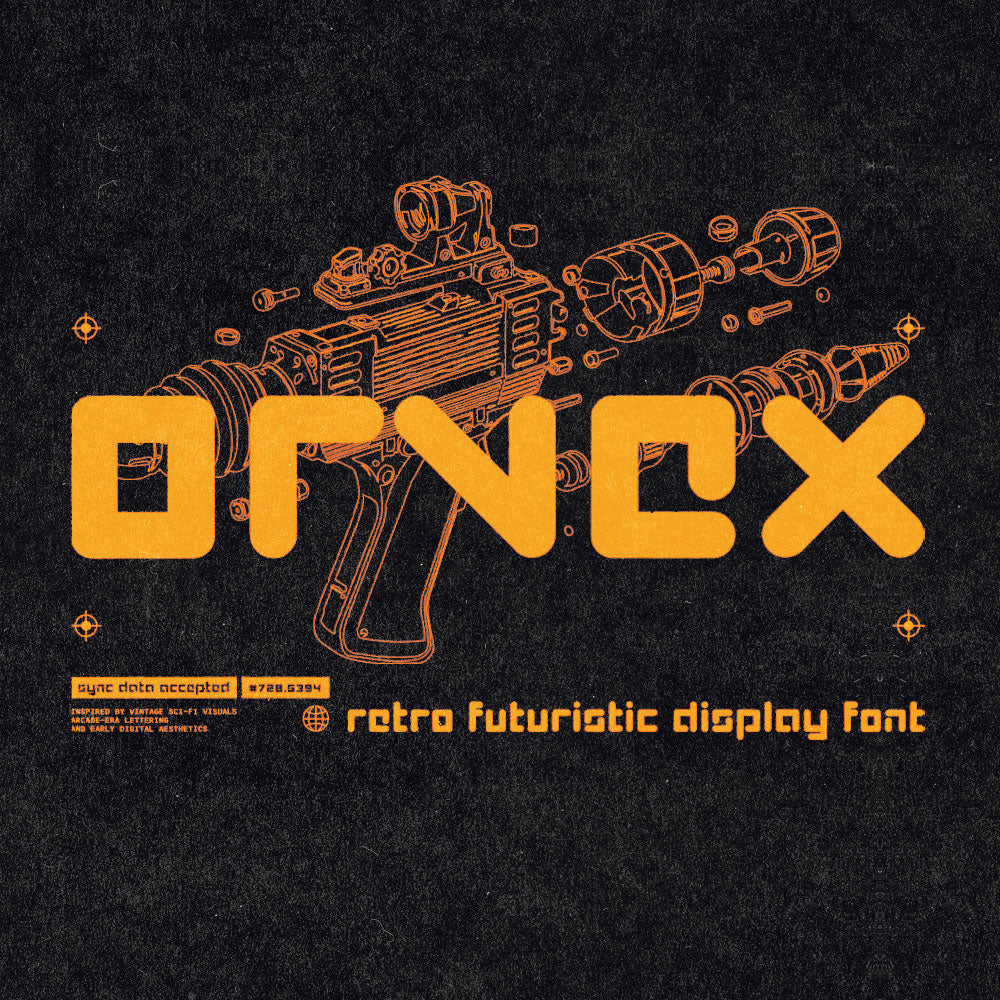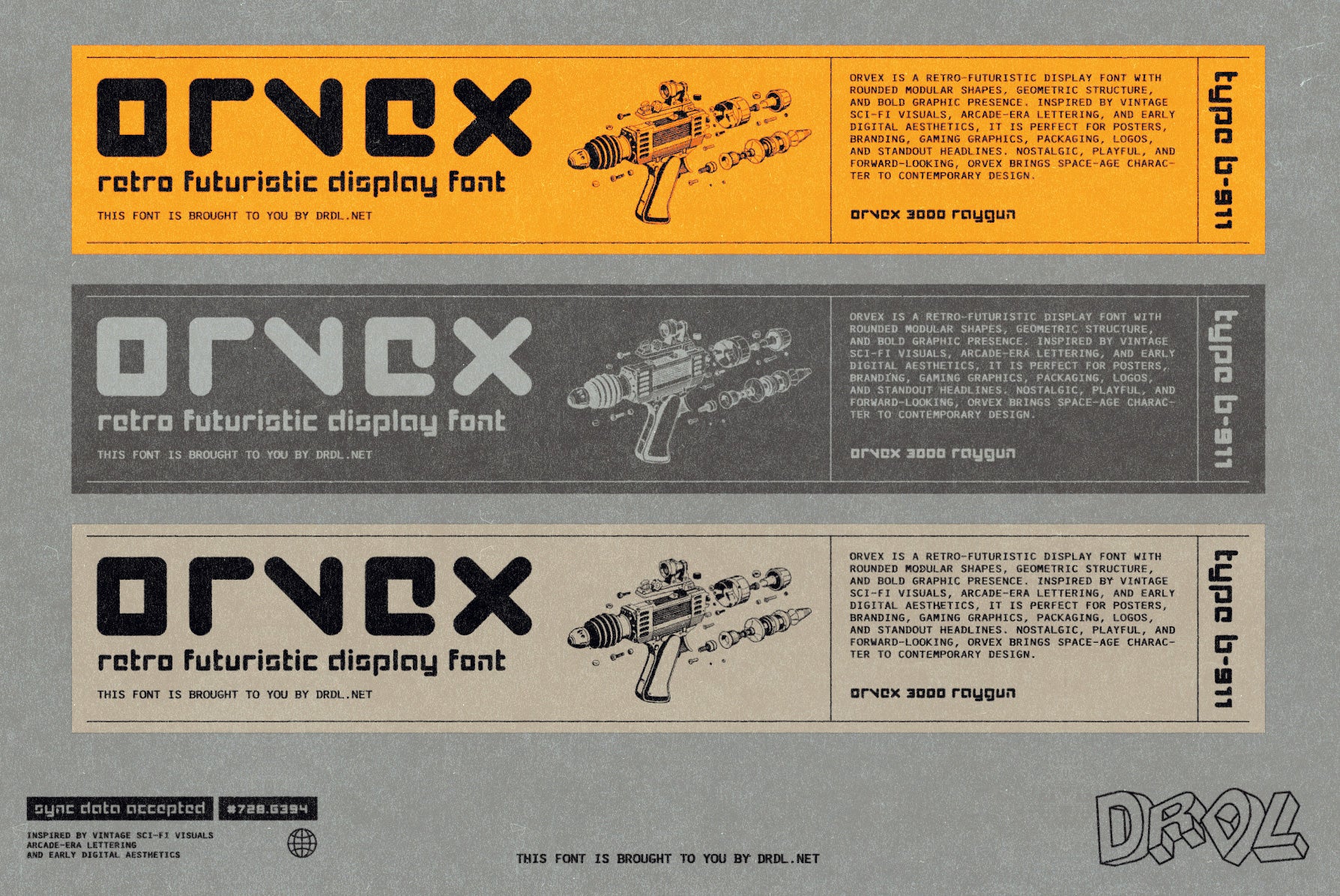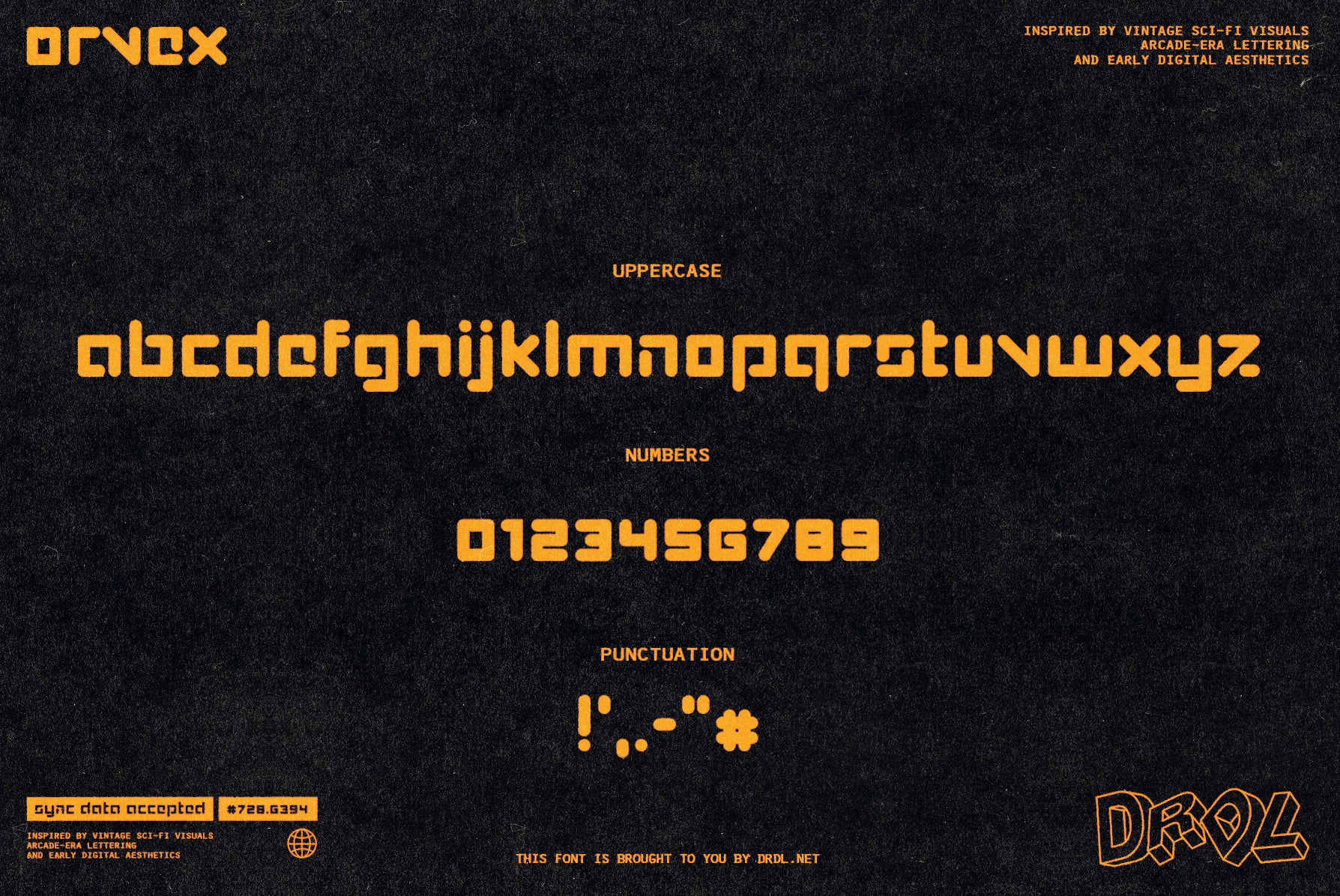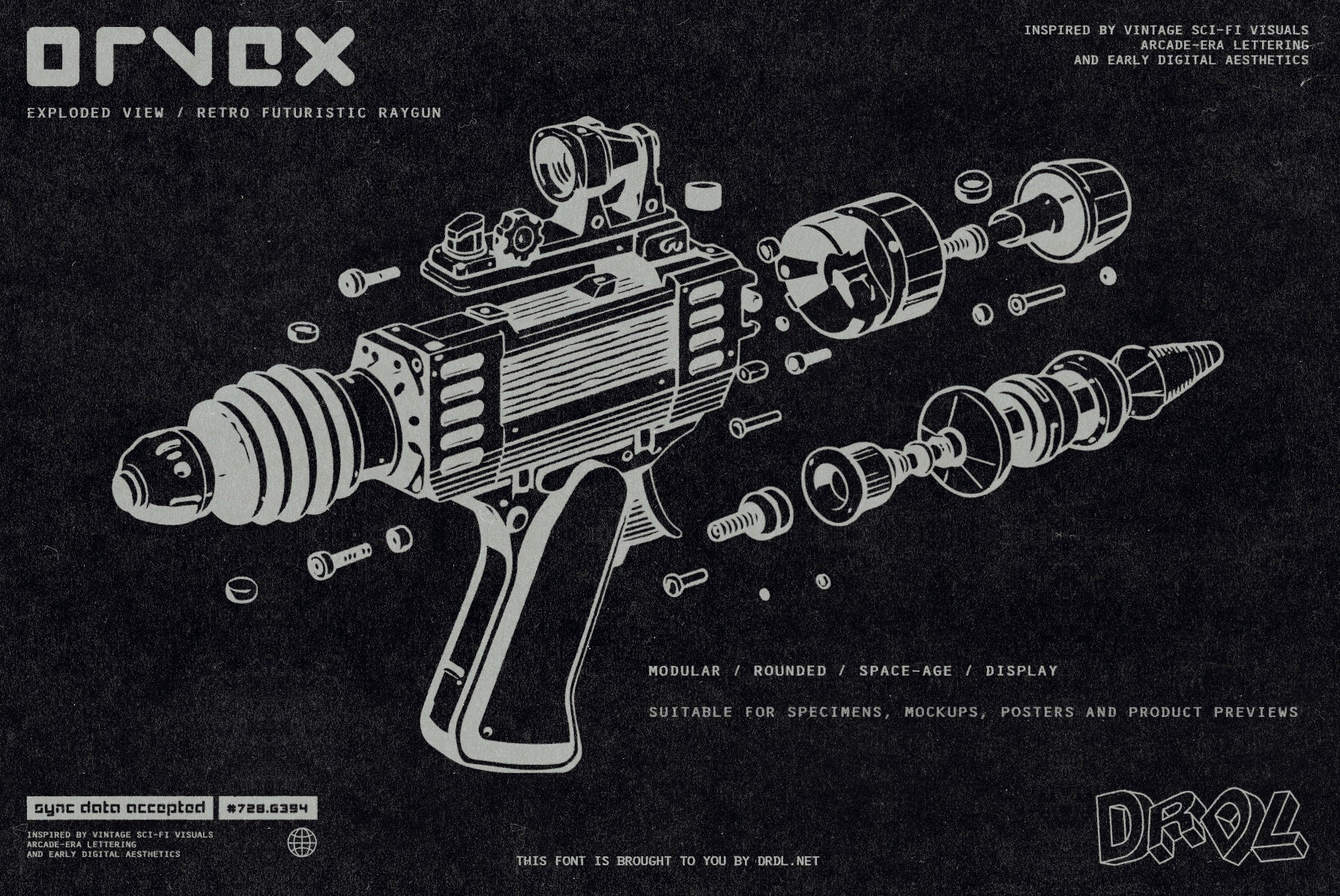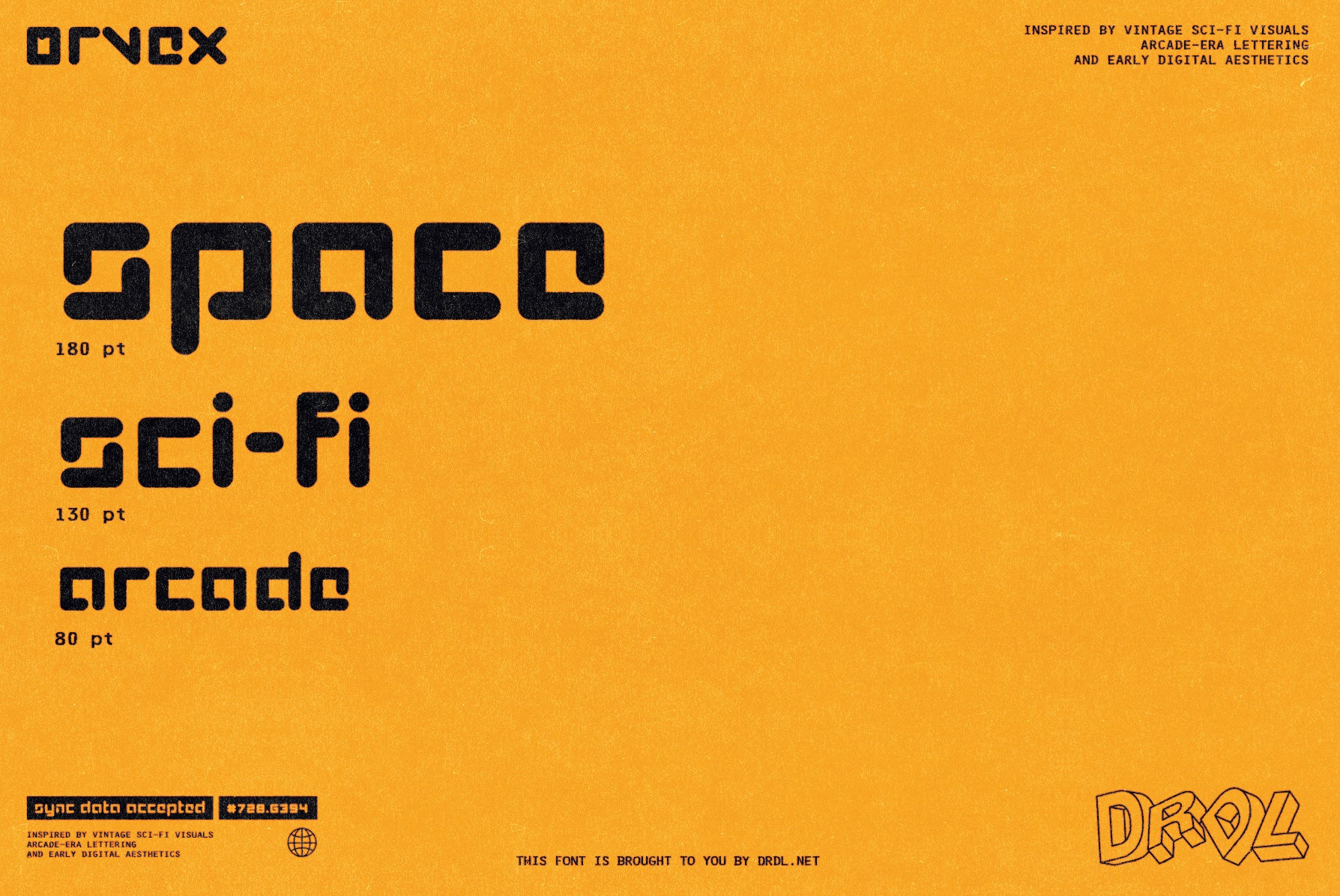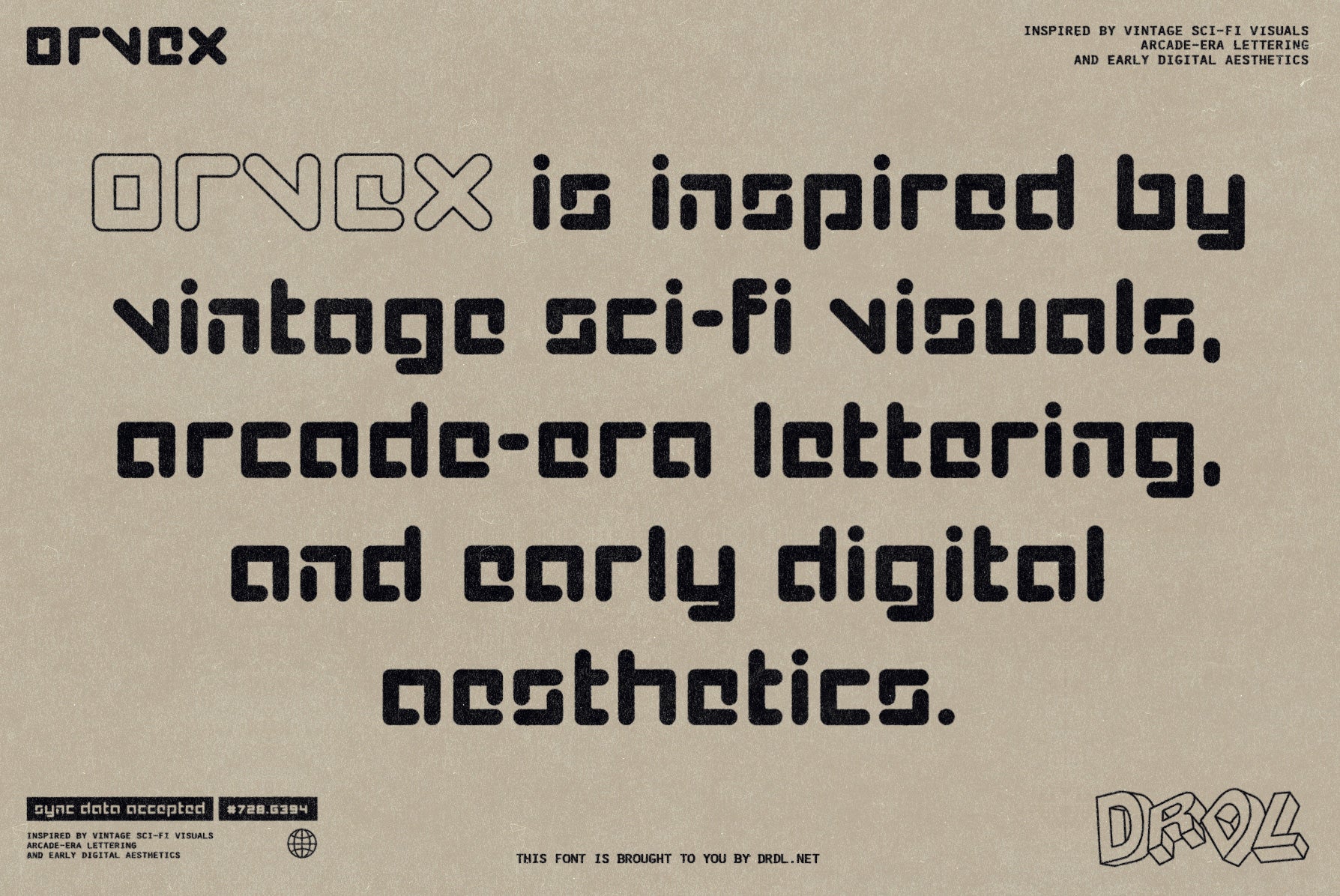
ORVEX – Retro Futuristic Display Font
ORVEX is a bold retro-futuristic display font built from rounded modular shapes and compact geometric forms.
Inspired by vintage sci-fi graphics, early digital interfaces, arcade-era lettering, and futuristic brand aesthetics, ORVEX blends nostalgic space-age character with a clean contemporary structure. Its soft corners, wide stance, and distinctive modular rhythm make it ideal for standout visual design.
Perfect for posters, album covers, branding, packaging, gaming graphics, motion design, social media visuals, logos, and headline-driven layouts, ORVEX is designed to bring playful futuristic energy without losing clarity and impact.
Perfect for:
• retro-futuristic branding
• posters and cover artwork
• gaming and sci-fi visuals
• packaging and logo design
• bold headlines and graphic layouts
• digital and editorial design
ORVEX is a bold retro-futuristic display font characterized by rounded modular shapes and compact geometric forms. Designed with inspiration from vintage sci-fi graphics and early digital interfaces, it features soft corners and a distinctive modular rhythm, making it suitable for various design applications.